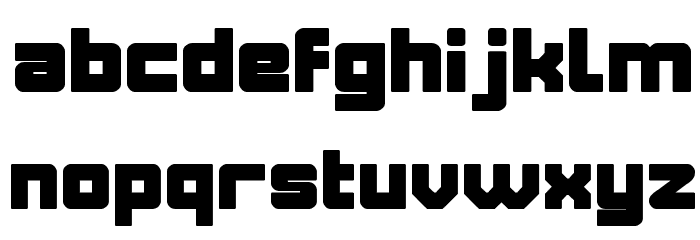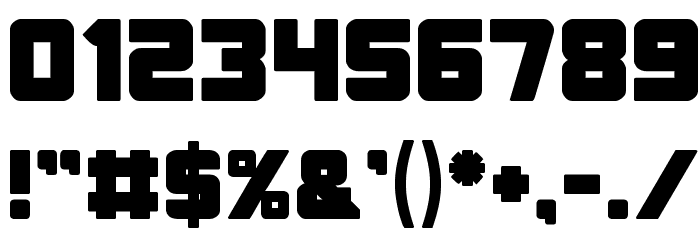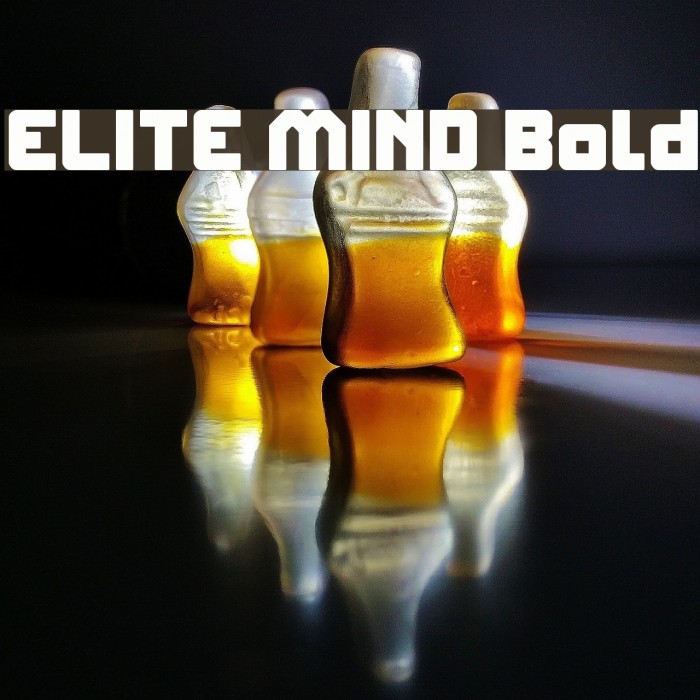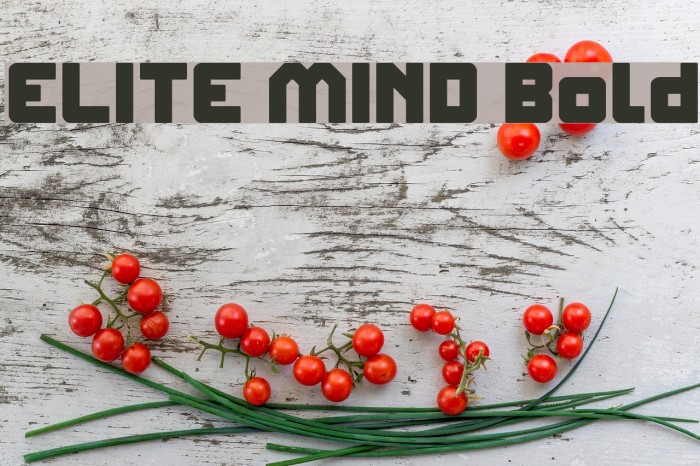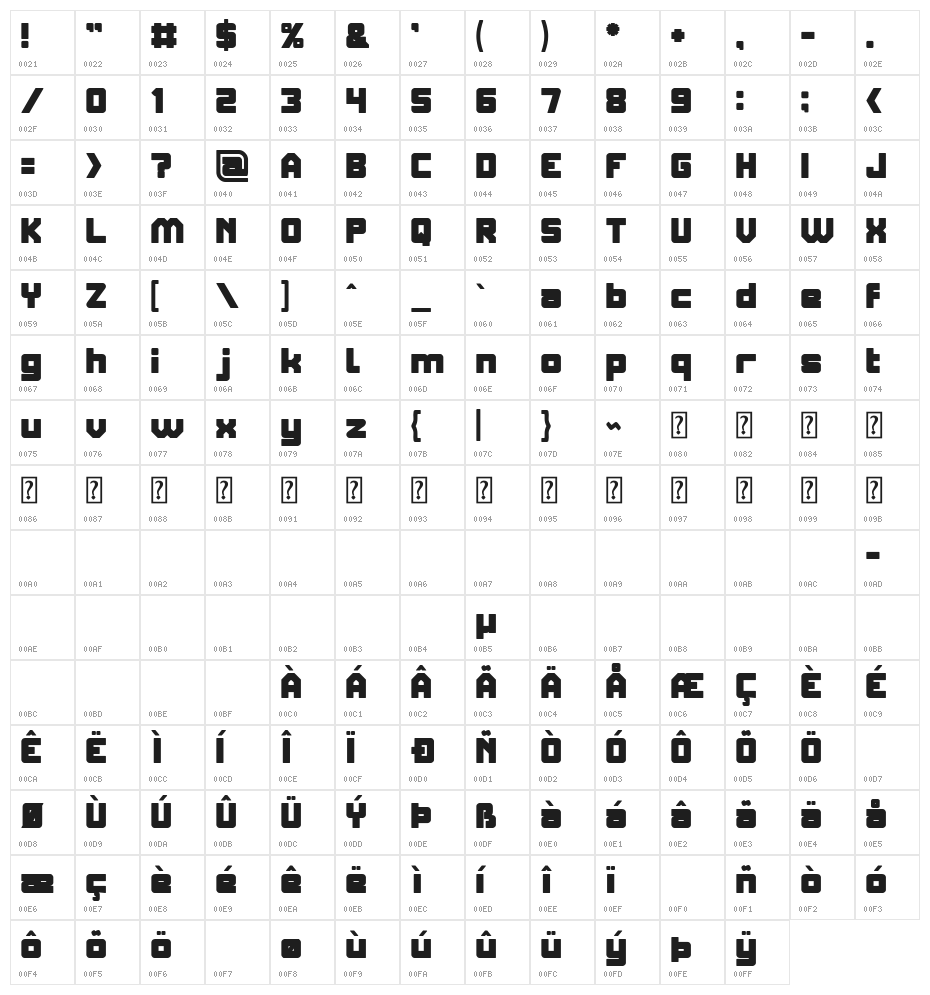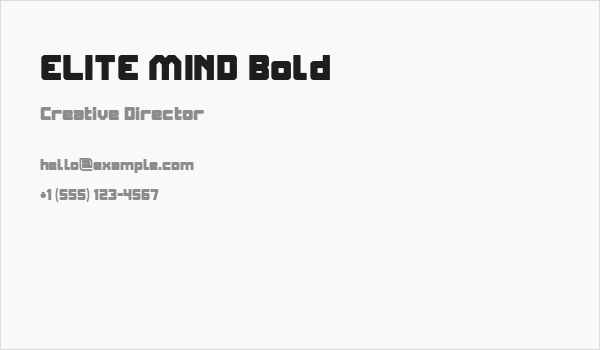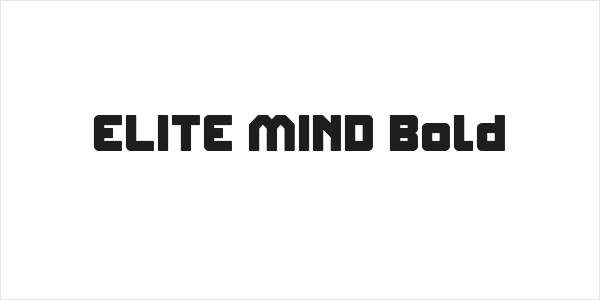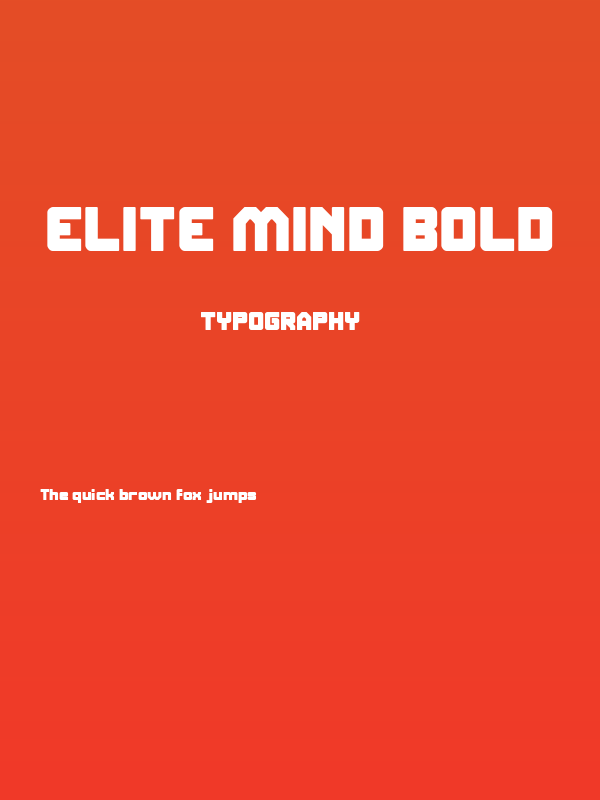
ELITE MIND Bold Font
This font features a bold, geometric style with strong, angular lines and a modern aesthetic. The characters are uniformly thick, creating a sense of strength and stability. The uppercase and lowercase letters maintain a consistent height, contributing to a cohesive and structured appearance. The numerals and special characters are designed to match the boldness and geometric nature of the alphabet, ensuring a seamless integration across all text elements. This font's design is both striking and functional, making it suitable for various applications where a strong visual impact is desired.
A bold, geometric font with strong, angular lines and a modern aesthetic.
- Proposed Projects: Ideal for branding, headlines, posters, and any project requiring a bold, modern look.